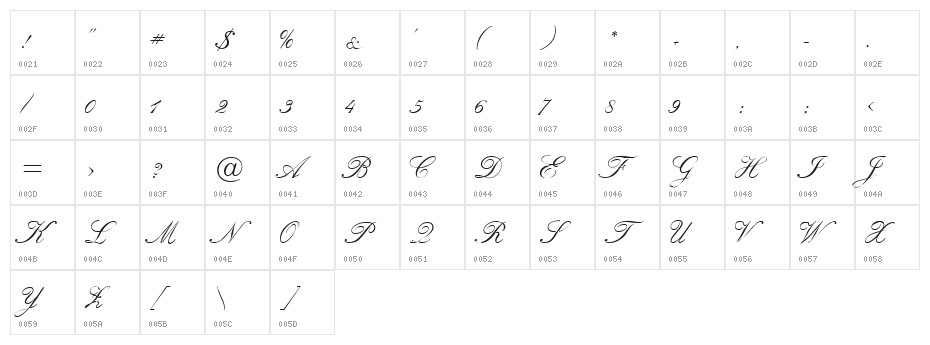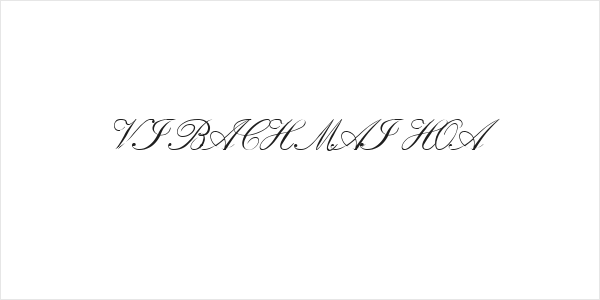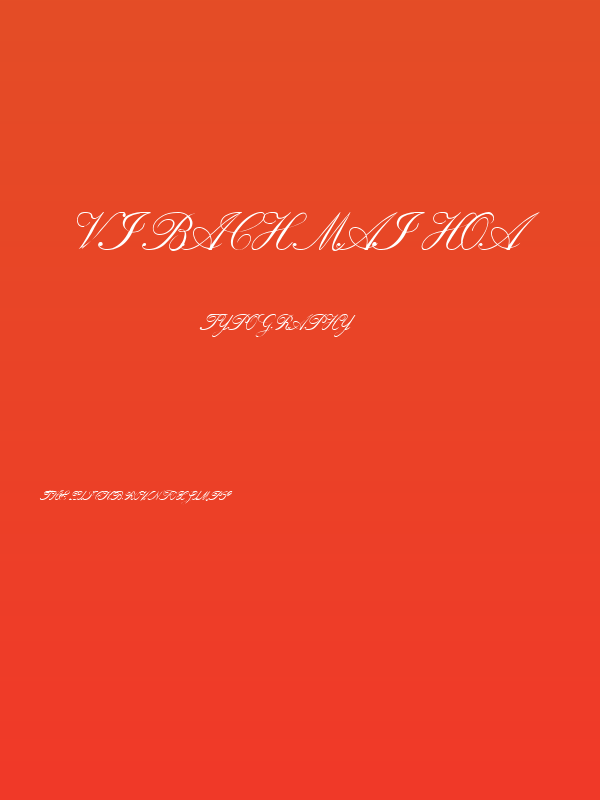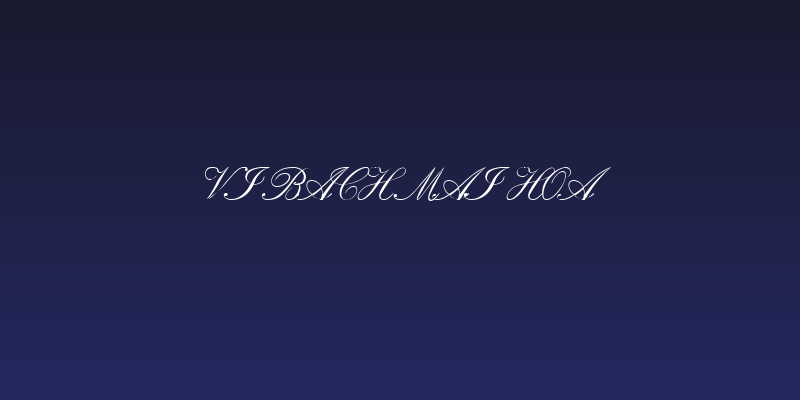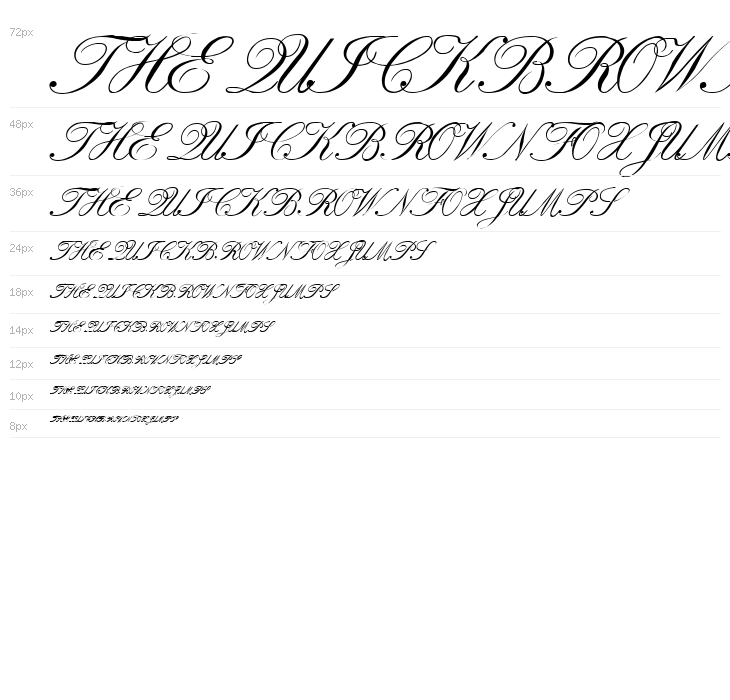
VI Bach Mai Hoa Font
VI Bach Mai Hoa Description
This elegant script font features intricate, flowing letterforms with a classic and sophisticated appearance. The characters are adorned with delicate swashes and flourishes, giving it a highly decorative and ornamental style. The uppercase letters are particularly elaborate, with extended loops and curves that add a sense of movement and grace. The lowercase letters maintain a consistent style, complementing the uppercase with their own subtle embellishments. The numerals and special characters are designed to match the overall aesthetic, ensuring a cohesive look across all text. This font is perfect for projects that require a touch of elegance and refinement.